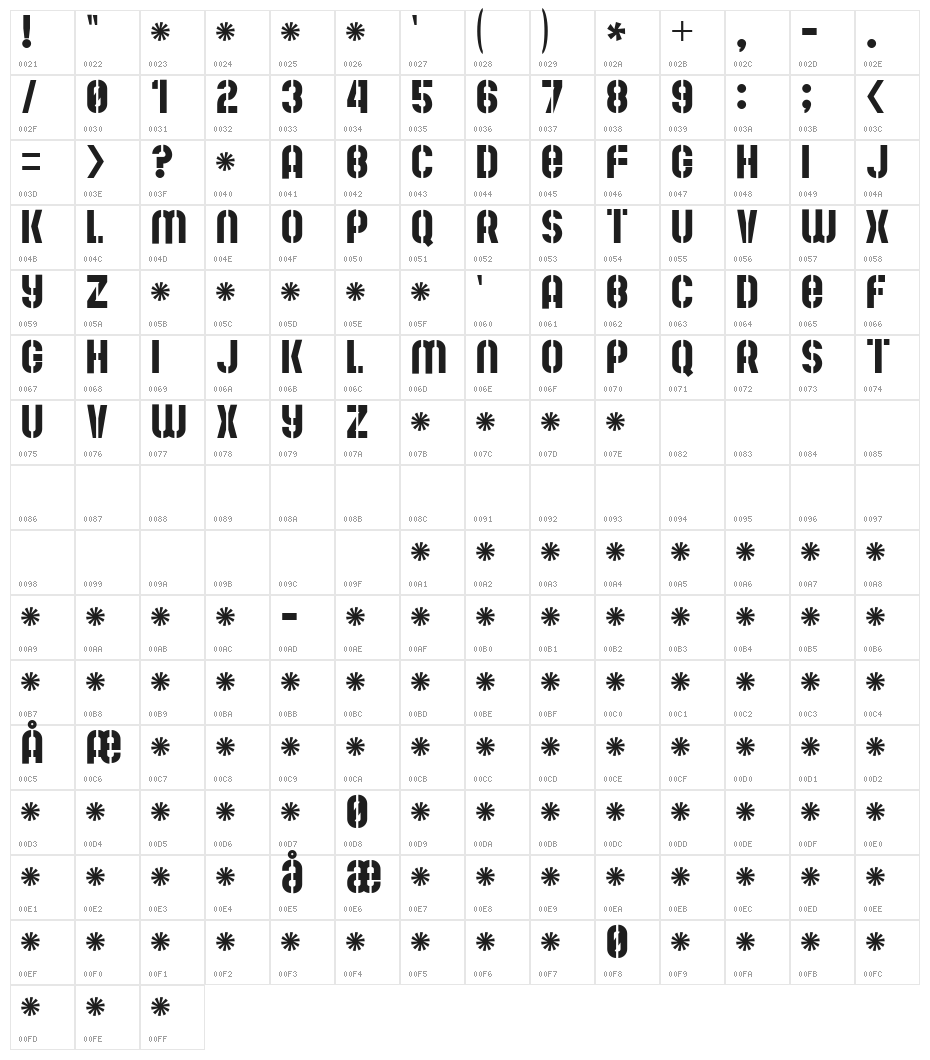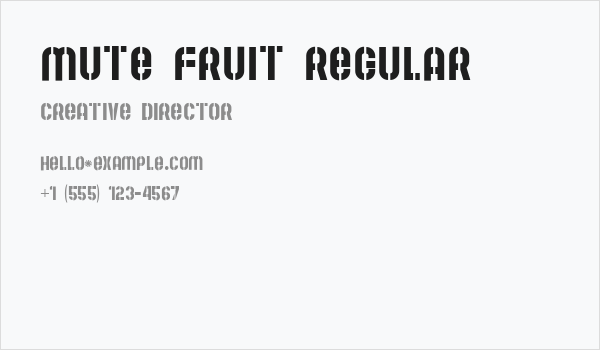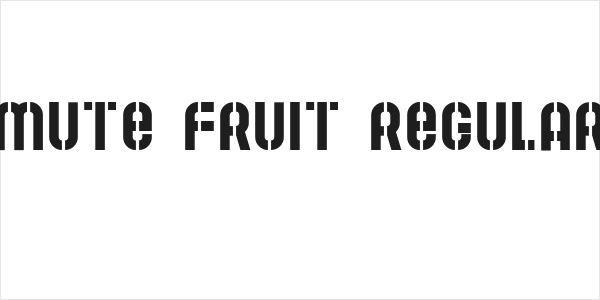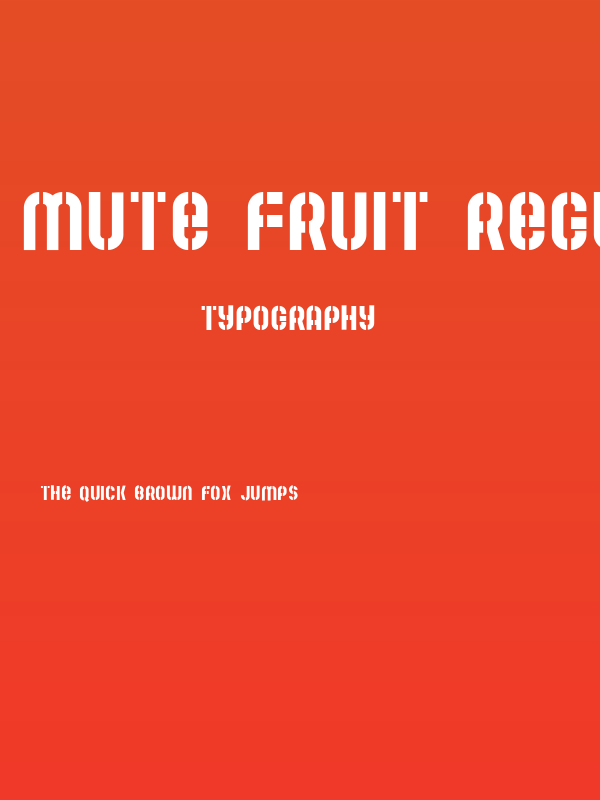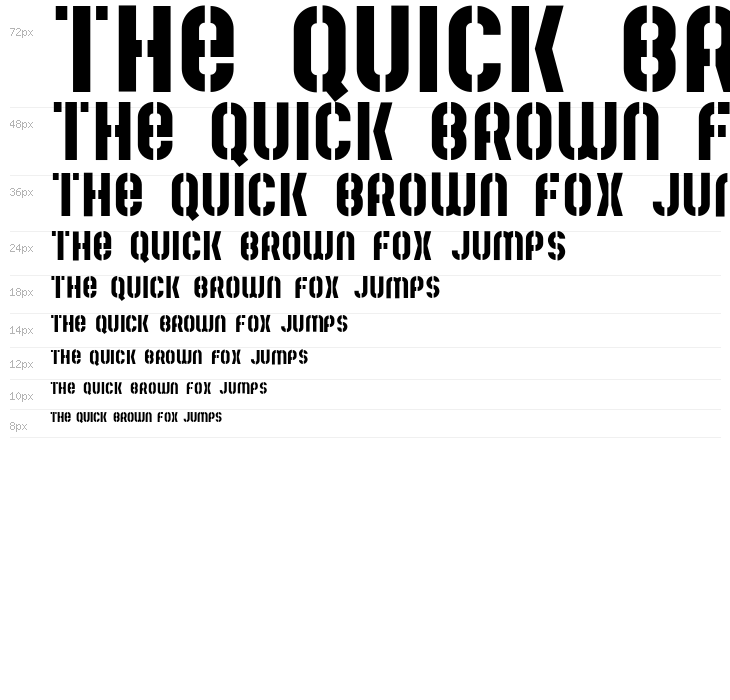
Mute Fruit Regular Font
Mute Fruit Regular Description
This font features a bold, geometric design with strong, angular lines and a distinct stencil-like appearance. The characters are constructed with consistent thickness, giving it a uniform and structured look. The cut-out sections within each letter add a unique, industrial feel, making it stand out in any design. The font maintains a modern aesthetic with a touch of retro influence, suitable for creating eye-catching headlines or logos. Its bold presence ensures readability while adding a creative flair to the text.
| Proposed Projects | Ideal for branding, posters, signage, and any project requiring a strong, modern typeface. |